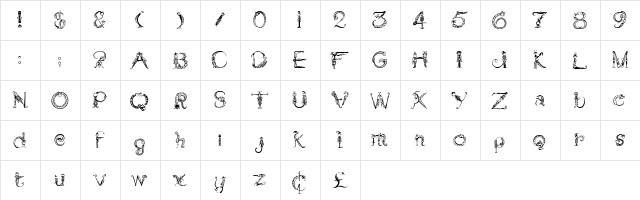
Tarantella Regular
Design Context for Tarantella Typeface
Tarantella is a composed and adaptable typeface that performs quietly and consistently across a wide range of design contexts.